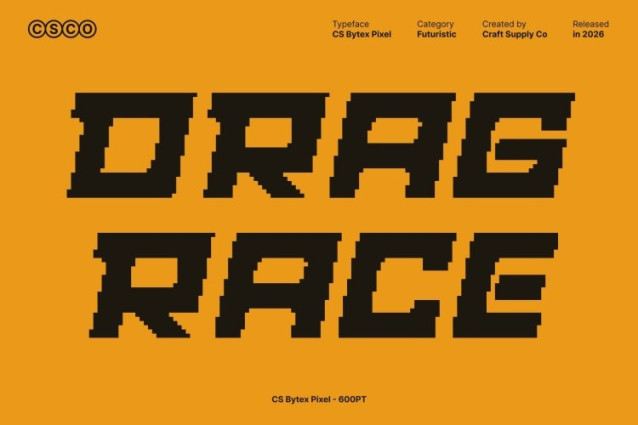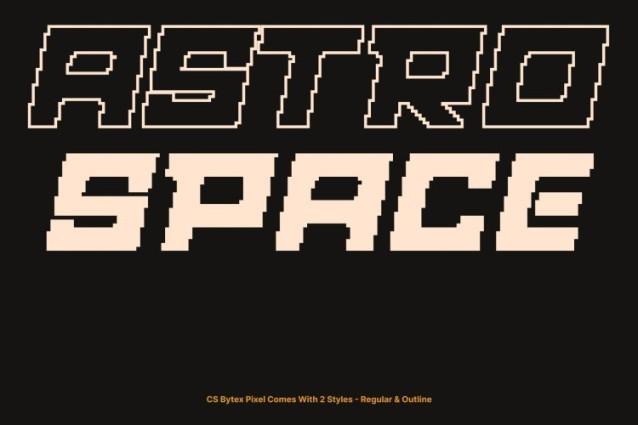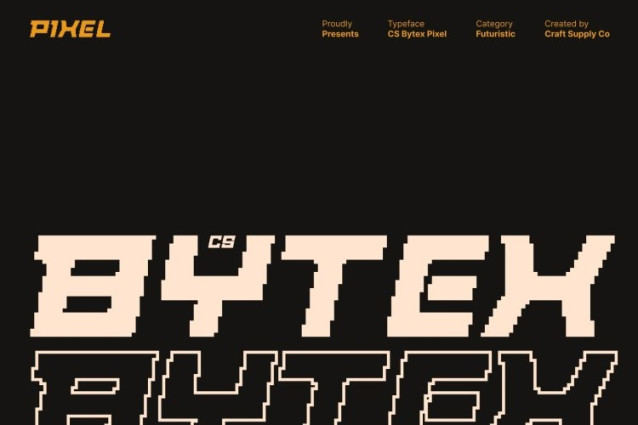
CS Bytex Pixel Font
CS Bytex Pixel Font This is a techno-inspired display font designed for the digital age. Its clean geometry, sharp pixel edges, and confident structure combine to create a bold, futuristic look that commands attention in every digital or print layout.
Dynamic Letterforms with Modern Tech Vibe
Every character is meticulously crafted with strong angles and precise pixel alignment. The result is a high-tech aesthetic that feels energetic, contemporary, and perfect for projects emphasizing innovation, progress, and digital sophistication.
Ideal for Branding, Gaming, and Futuristic Design
From logos and posters to interfaces and tech branding, this font delivers a striking visual presence. Its assertive weight and modern forms give your designs clarity, authority, and that unmistakable futuristic edge.
Bold, Clean, and Unapologetically Digital
More than a typeface, this font is a statement. Its pixel-inspired structure elevates every project, bringing sharpness, precision, and high-tech energy to branding, editorial layouts, and digital campaigns.